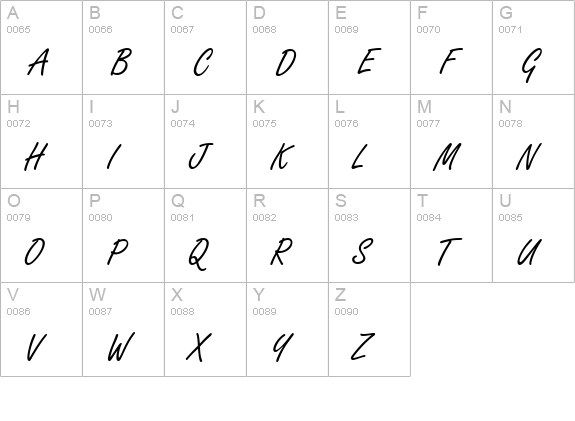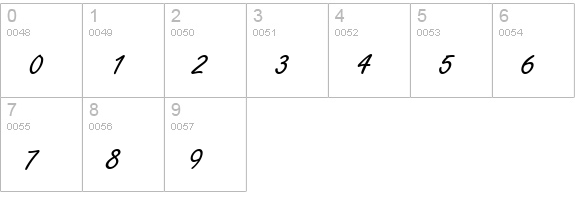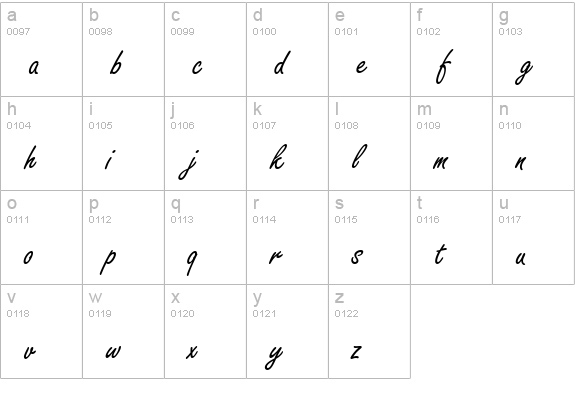
Freestyle Script Font Details
Freestyle Script font is a charming and casual typeface that exudes a sense of creativity and informality. Its flowing strokes and gentle curves give off a relaxed and friendly vibe, making it perfect for a wide range of design projects. Whether you're looking to add a personal touch to invitations, cards, or social media graphics, Freestyle Script is sure to bring a touch of warmth and personality to your work. And the best part? Freestyle Script font is available for free download at FontsMarket.com, making it accessible to all designers and creators looking to add a touch of whimsy to their projects. Download this delightful font today and unleash your creativity with Freestyle Script!